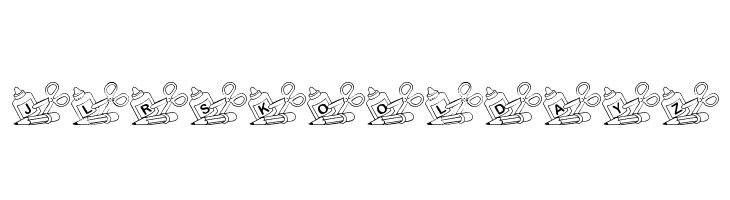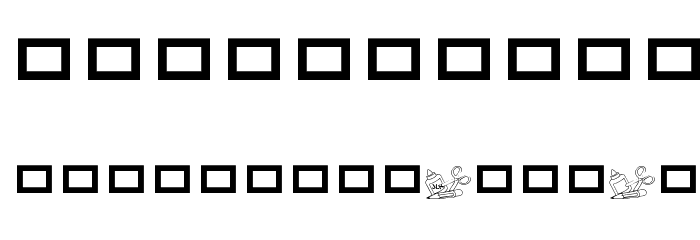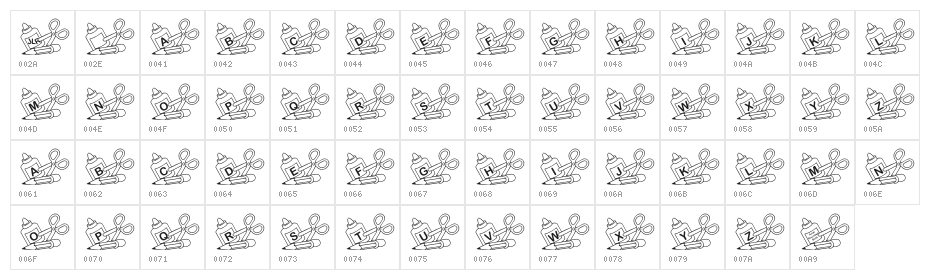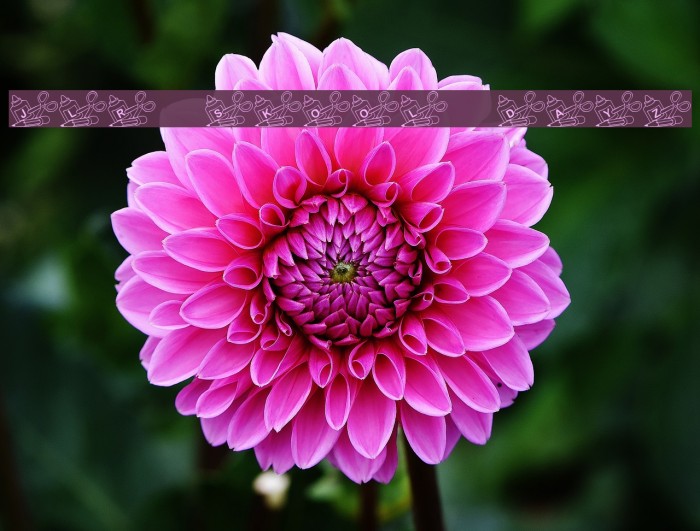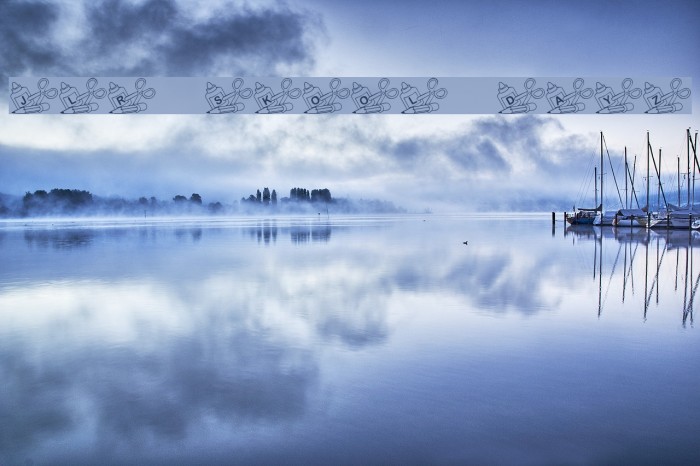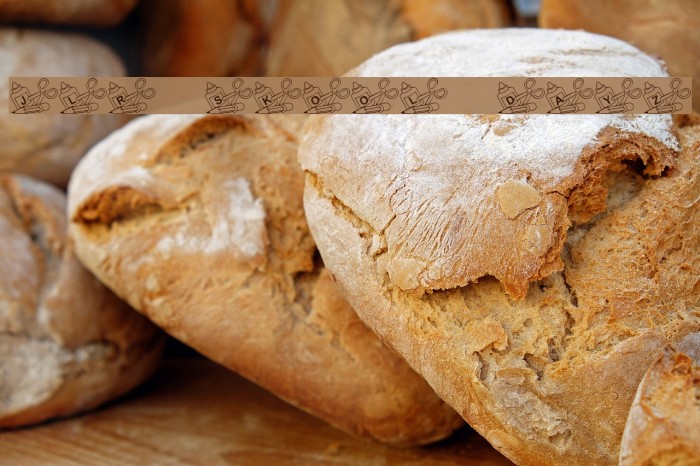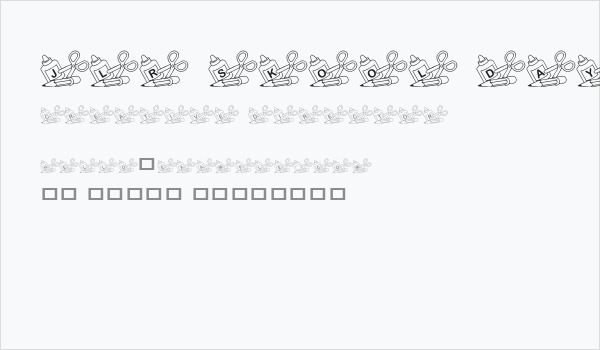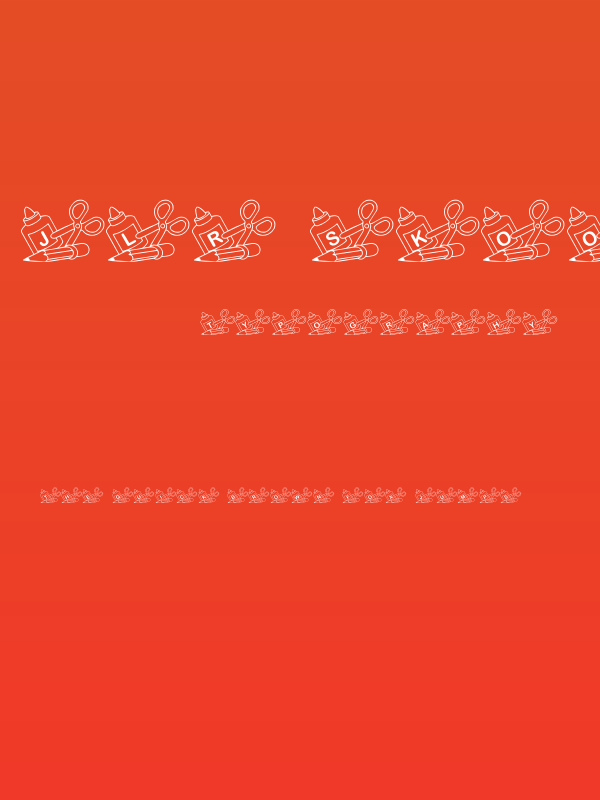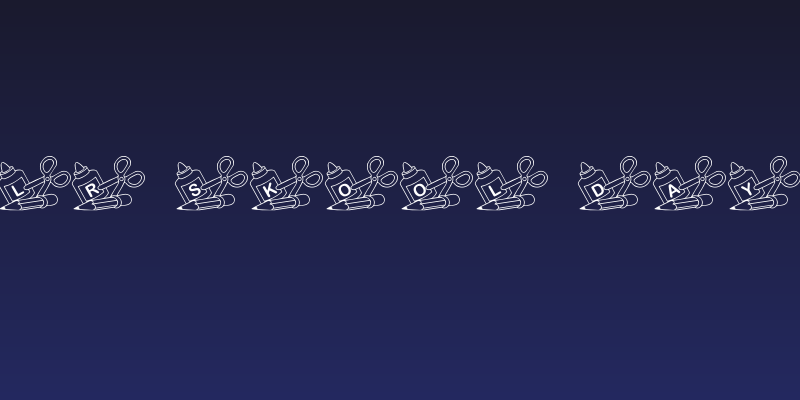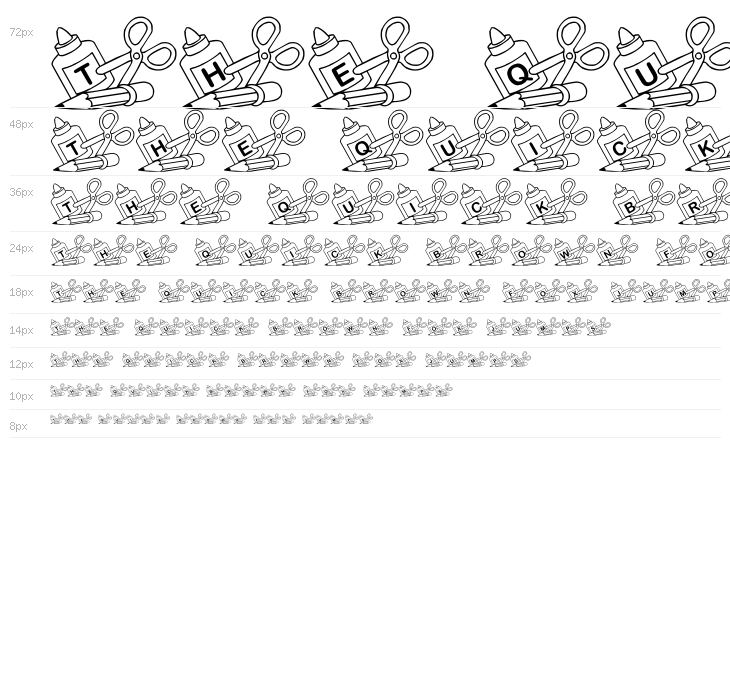
JLR Skool Dayz Font
JLR Skool Dayz Description
This playful and whimsical font features each character embedded within a school-themed doodle, complete with elements like pencils, scissors, and paper. The design evokes a sense of nostalgia and creativity, reminiscent of school days filled with arts and crafts. Each letter is uniquely crafted to fit within the doodle, making it a decorative and eye-catching choice. The font is not suitable for numbers or special characters, as these are represented by simple box outlines, indicating a focus on the alphabet. The overall style is informal and fun, perfect for projects that aim to capture a youthful or educational theme.
| Overall Style | Whimsical, Playful |
| Use Case | Headlines, Decorative text |
| Proposed Projects | Ideal for children's books, educational materials, school event posters, and creative projects aimed at a younger audience. |